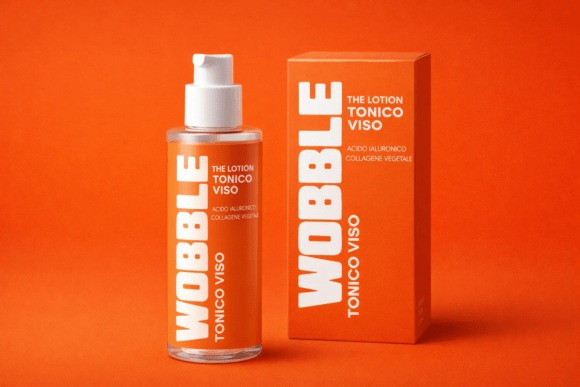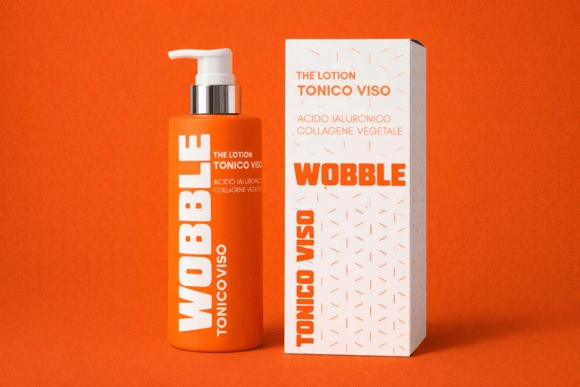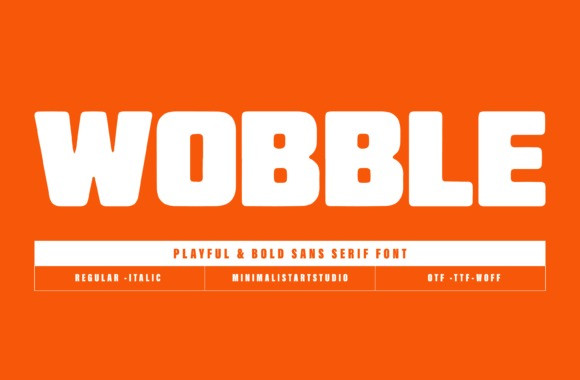
WOBBLE DISPLAY FONT
Wobble Display Font is a bold, chunky sans serif font designed to make your designs stand out instantly. With thick rounded shapes and a playful personality, it’s perfect for eye-catching headlines, logos, posters, packaging, and social media graphics.